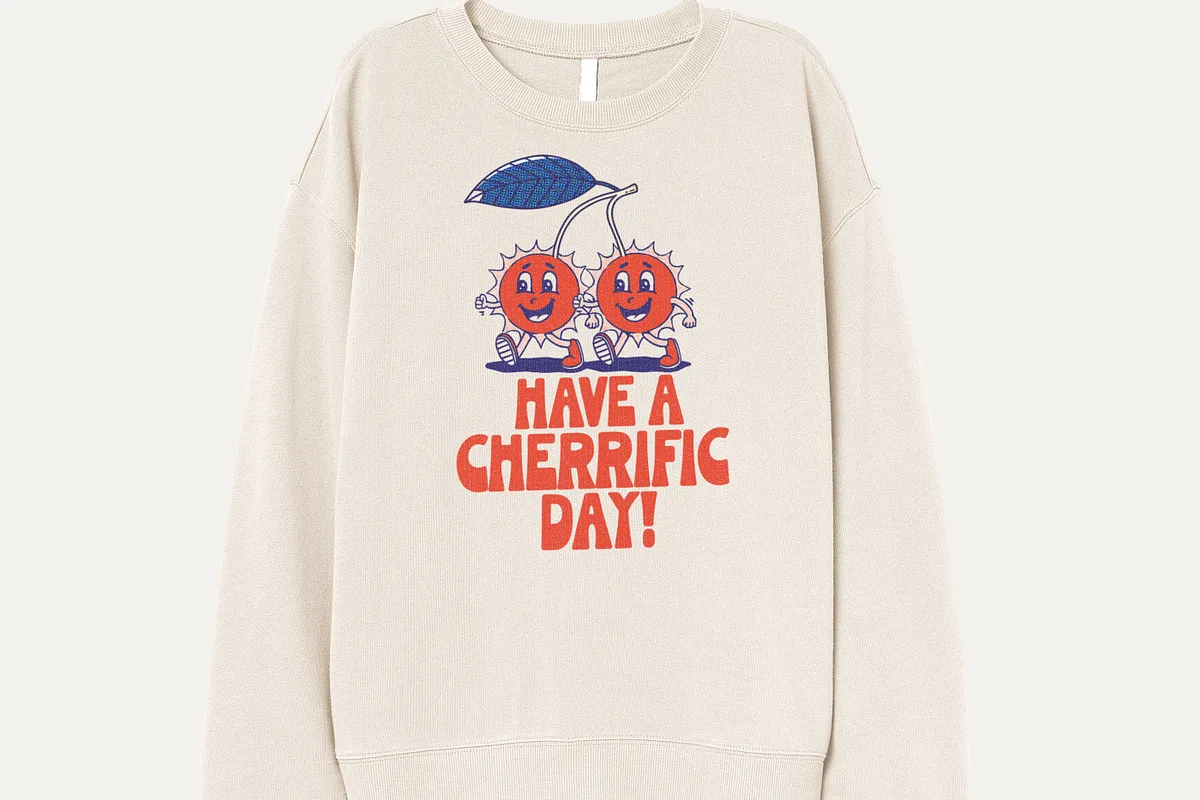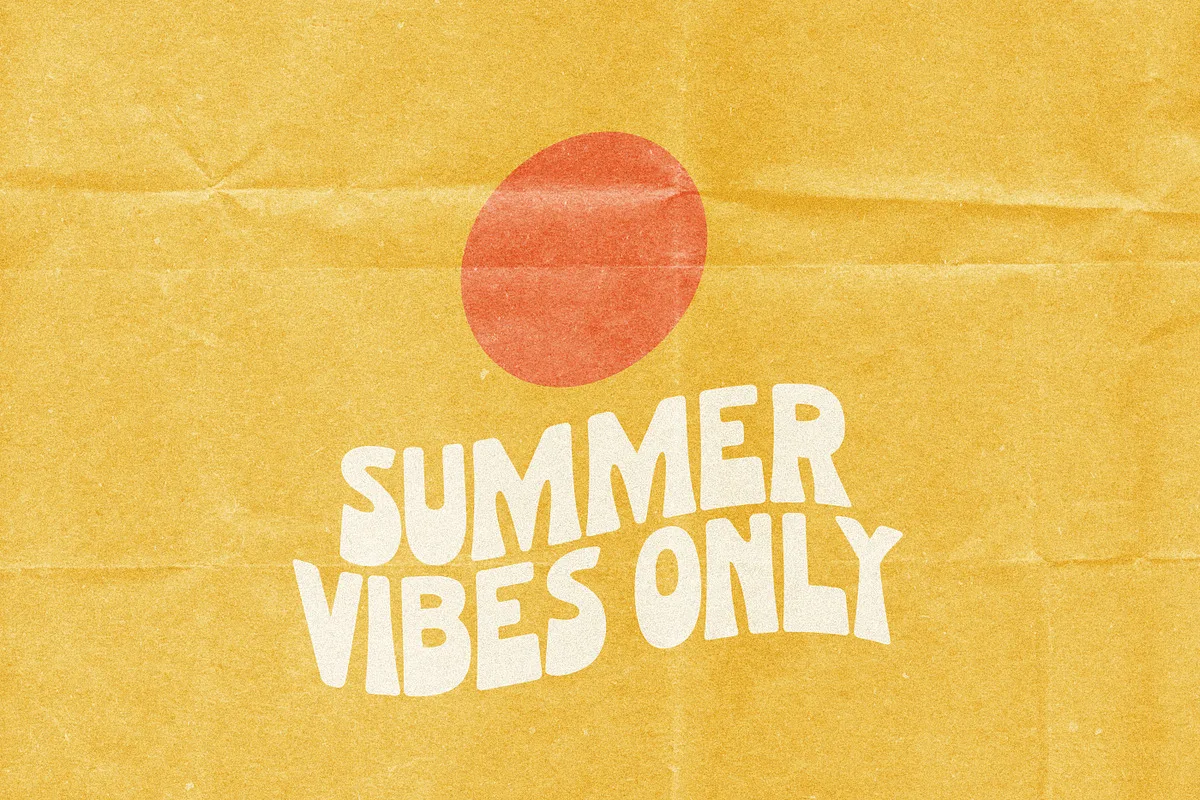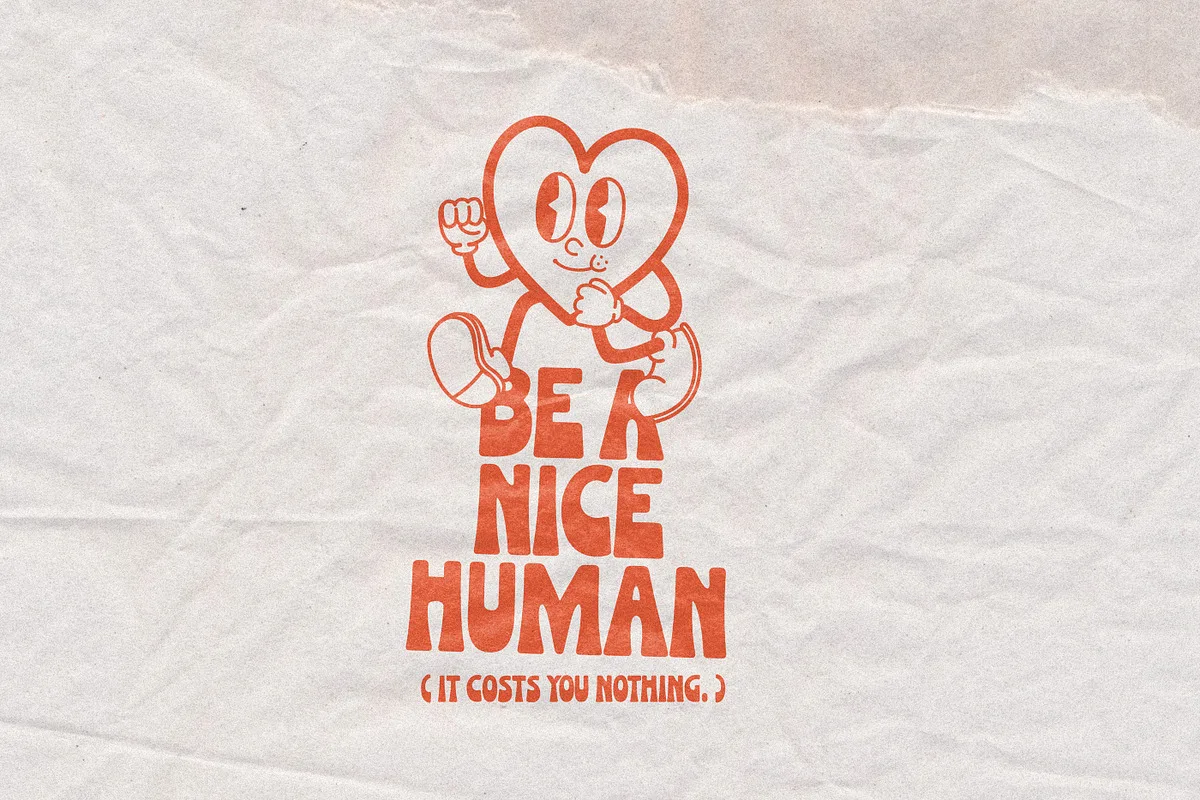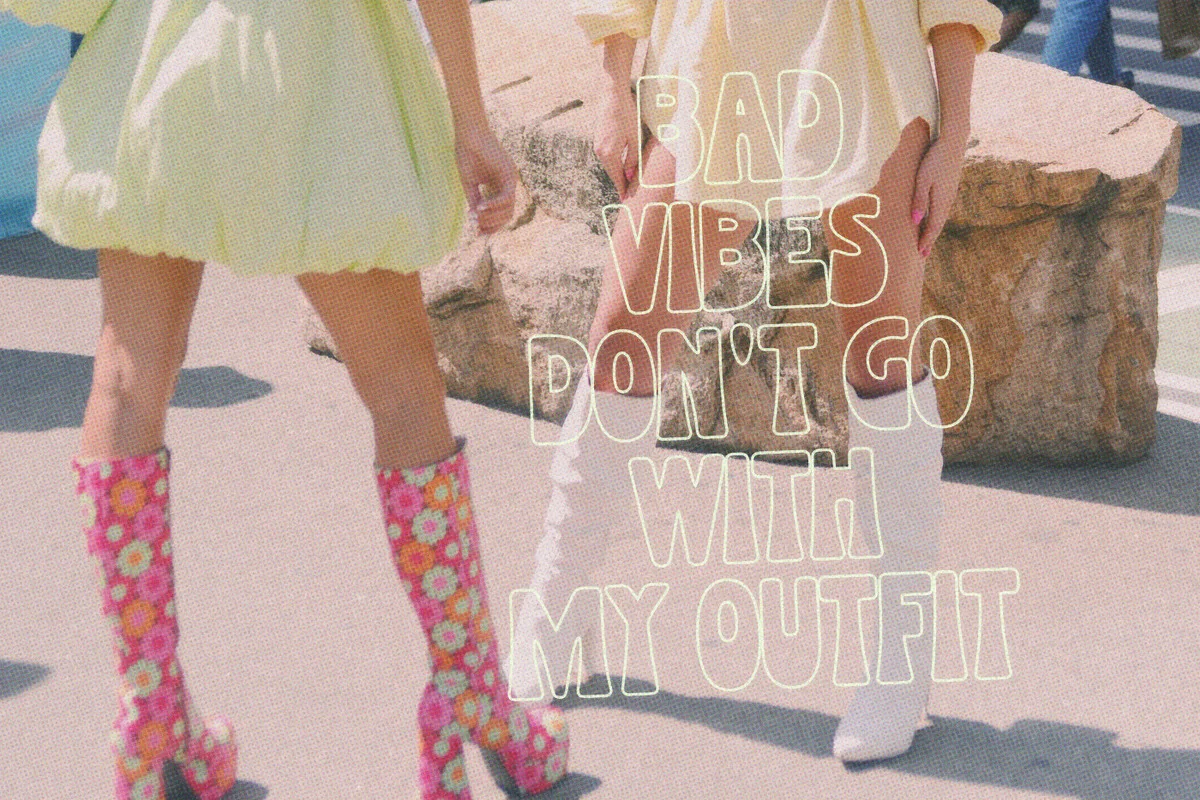
Superfreak is a retro fun with an all-caps, 70’s 70-inspired font complete with groovy bellbottoms! It comes in two versions – Regular and Outline.
Superfreak Retro Font